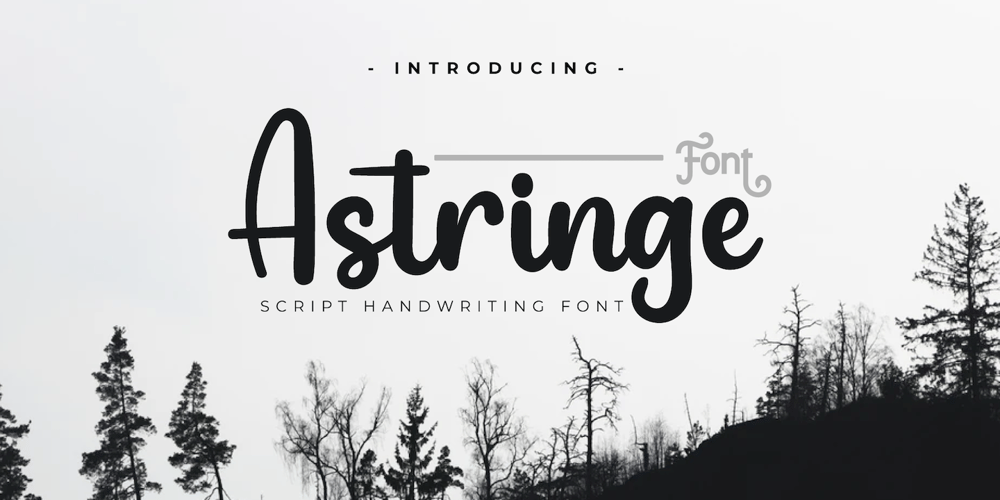
Astringe
Astringe font
Astringe Font Family was designed by Rozikan and published by Twinletter. Astringe contains 1 styles and family package options. Atringe is our newest handwriting script font that has its own charm if it is displayed in various promotional design media or product labels, and has a harmonious nature in its arrangement.This font is designed with a natural touch of handwriting which is refined to create a portion and composition that suits your needs. So this font is suitable for craft, children’s writing, adventure posters, food banner titles, wedding invitations, product packaging logos, quotes, social media page covers, furniture banner headlines, book covers, and much more.